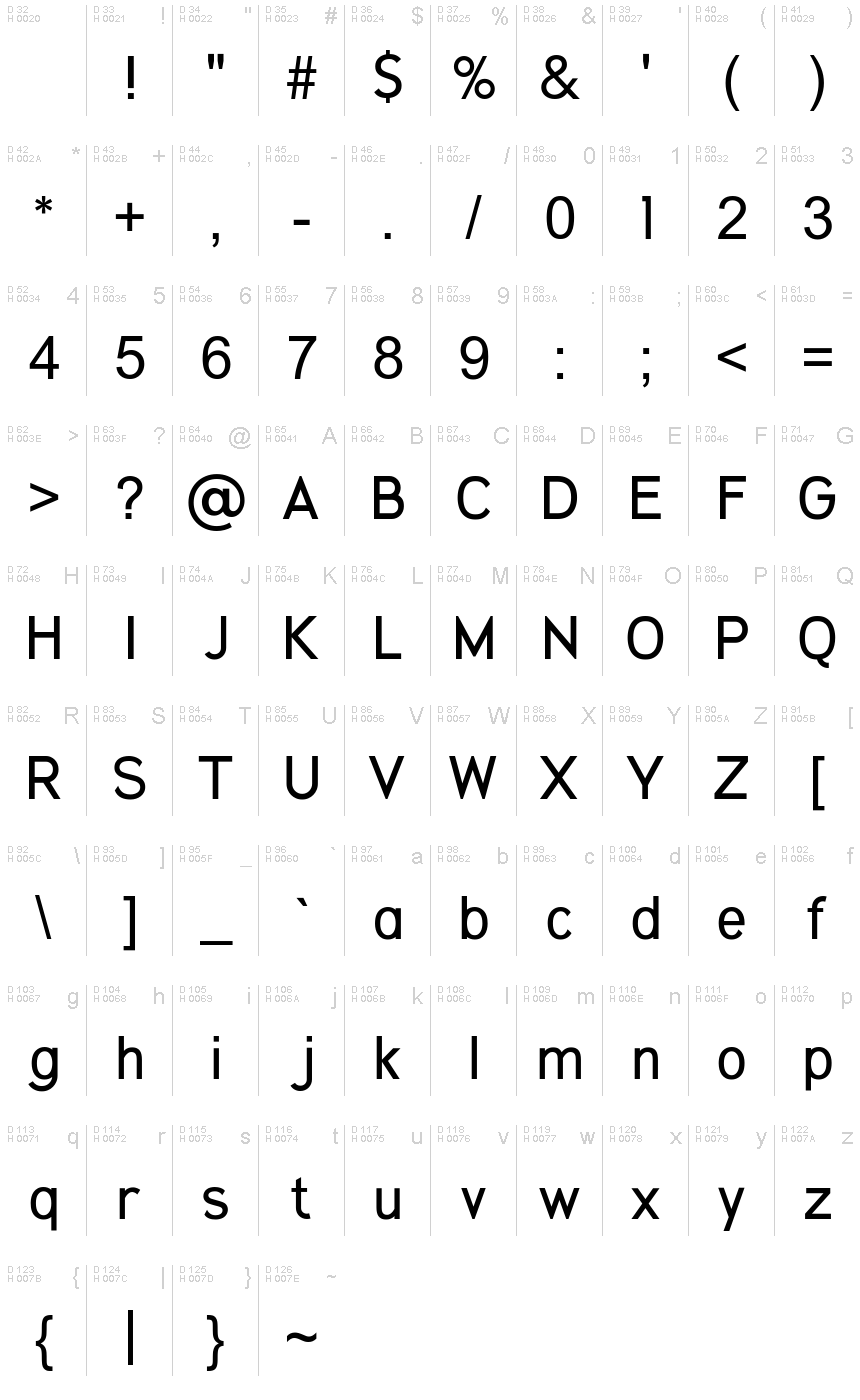
Primavera Sans Regular
Primavera Sans font, crafted by UI Creative, is a modern sans serif typeface that stands out with its clean lines and harmonious structure. Its sleek design exudes a contemporary aesthetic, perfect for projects aiming for clarity and sophistication. The medium weight offers excellent readability, making it ideal for both print and digital use.
This free font is versatile enough to enhance branding materials, editorial content, or web design projects. Whether you're creating eye-catching headlines or streamlined body text, Primavera Sans ensures elegance and functionality in every context. Download this font to transform your creative endeavors with style and precision.